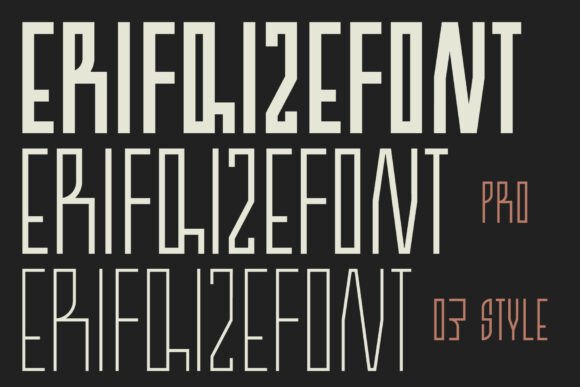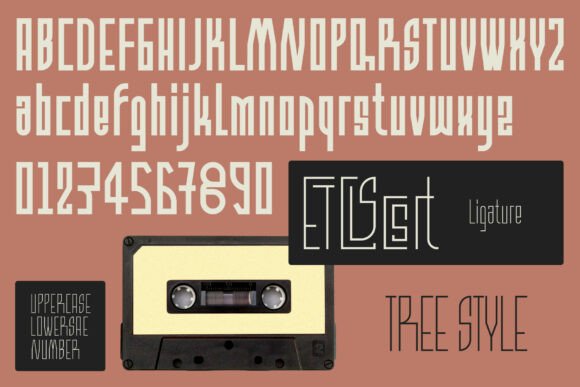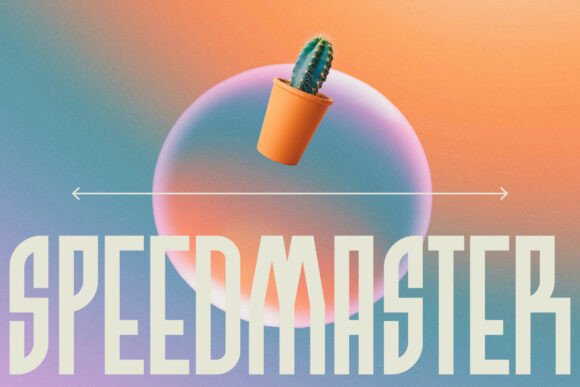
Nition Font: Free Download Now
Introduction to Nition Font
NITION is a modern condensed display typeface built for speed, strength, and clarity.
👤 Author erifqizefont
Featuring tall proportions and sharp geometric forms, NITION delivers a strong visual presence inspired by sports, motion, and high-performance design This type family includes 3 versatile styles: NITION Thin — sleek and minimal, perfect for layered compositions, modern layouts, and dynamic typography.